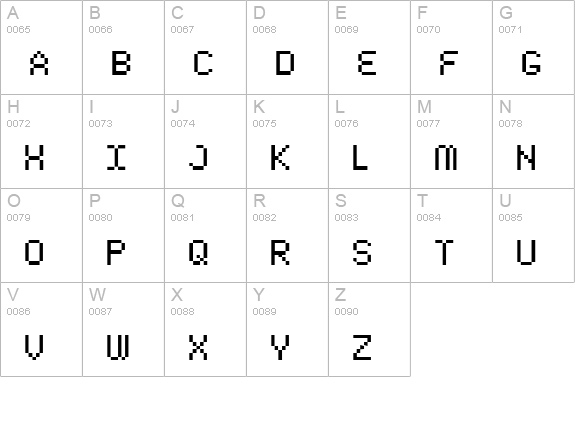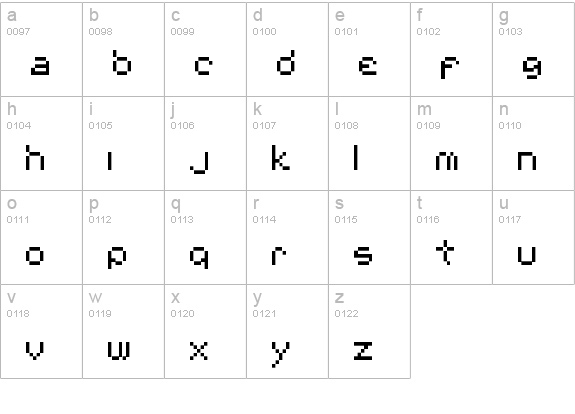
00 Starmap Truetype Font Details
00 Starmap Truetype font is a modern and versatile typeface that is perfect for creating eye-catching designs. With its sleek lines and futuristic feel, this font is ideal for projects that require a touch of sophistication and innovation. Whether you're designing a logo, poster, or website, 00 Starmap Truetype font will elevate your work to the next level. The best part? This font is available for free download at FontsMarket.com. Simply visit the website to get your hands on this amazing font and start using it in your projects today. Don't miss out on the opportunity to add 00 Starmap Truetype font to your font collection and take your designs to new heights.